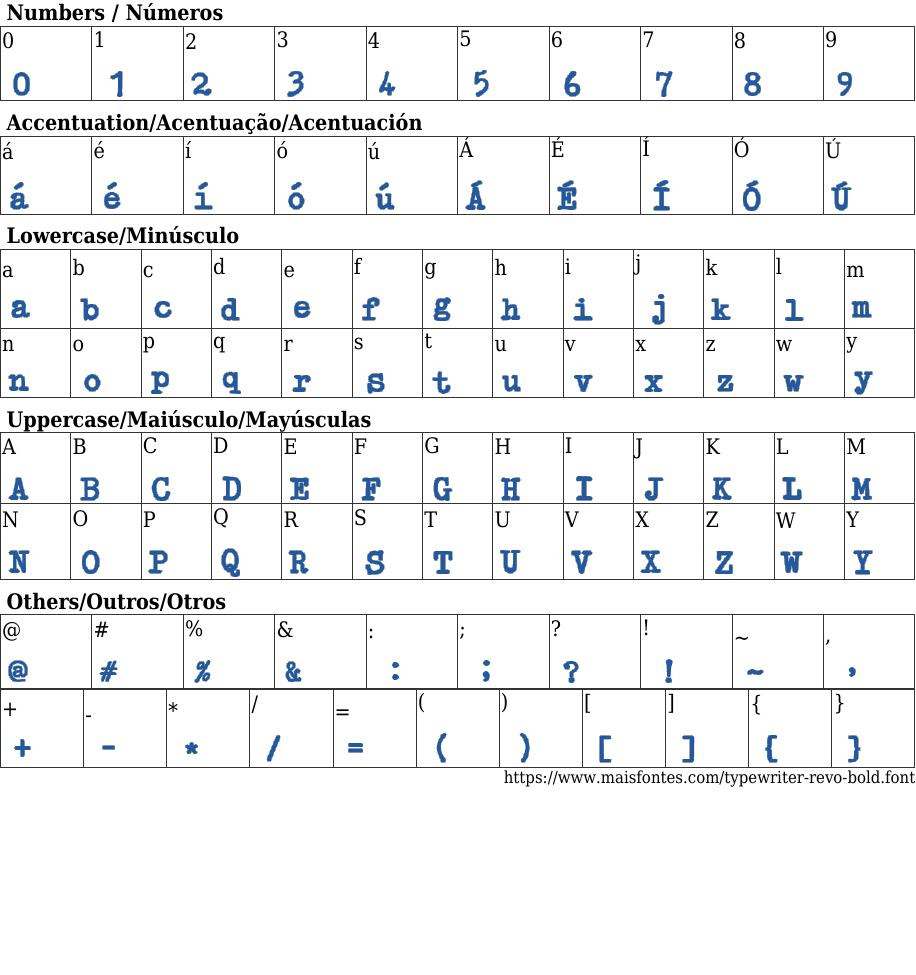
Typewriter Revo Font Free Download . These typewriter fonts look like they were written with an old mechanical typewriter. Get to know the typewriter revo font family and download it for free to use in your project. A great choice for highlighting your design elements. Using a catalog of over 990k+ fonts (commercial or free) and our font finder ai, we are able to display over 60 fonts for every image uploaded. Typewriter revo is based on. Typewriter revo is more suitable for continuous text and typewriter basix is suitable for large pictures, logos or headings. Typewriter revo bold is the perfect font for all your fun. In contrast to typewriter basix, typewriter revo includes 11. Typewriter revo regular font free download. Archive of freely downloadable fonts. Browse by alphabetical listing, by style, by author or by popularity.
Browse by alphabetical listing, by style, by author or by popularity. These typewriter fonts look like they were written with an old mechanical typewriter. Typewriter revo regular font free download. A great choice for highlighting your design elements. Typewriter revo bold is the perfect font for all your fun. In contrast to typewriter basix, typewriter revo includes 11. Get to know the typewriter revo font family and download it for free to use in your project. Typewriter revo is based on. Archive of freely downloadable fonts. Typewriter revo is more suitable for continuous text and typewriter basix is suitable for large pictures, logos or headings.
Typewriter Revo Font Free Download Typewriter revo is based on. Archive of freely downloadable fonts. Typewriter revo is more suitable for continuous text and typewriter basix is suitable for large pictures, logos or headings. Get to know the typewriter revo font family and download it for free to use in your project. In contrast to typewriter basix, typewriter revo includes 11. Browse by alphabetical listing, by style, by author or by popularity. Typewriter revo is based on. These typewriter fonts look like they were written with an old mechanical typewriter. Typewriter revo bold is the perfect font for all your fun. Using a catalog of over 990k+ fonts (commercial or free) and our font finder ai, we are able to display over 60 fonts for every image uploaded. A great choice for highlighting your design elements. Typewriter revo regular font free download.
REVO Regular font Typewriter Revo Font Free Download Get to know the typewriter revo font family and download it for free to use in your project. These typewriter fonts look like they were written with an old mechanical typewriter. Typewriter revo bold is the perfect font for all your fun. A great choice for highlighting your design elements. Typewriter revo is based on. Archive of freely downloadable fonts.. Typewriter Revo Font Free Download.
17 of the best typewriter fonts Creative Bloq Typewriter Revo Font Free Download In contrast to typewriter basix, typewriter revo includes 11. Typewriter revo is more suitable for continuous text and typewriter basix is suitable for large pictures, logos or headings. A great choice for highlighting your design elements. Archive of freely downloadable fonts. Using a catalog of over 990k+ fonts (commercial or free) and our font finder ai, we are able to. Typewriter Revo Font Free Download.
Revo Font Typewriter Revo Font Free Download These typewriter fonts look like they were written with an old mechanical typewriter. Browse by alphabetical listing, by style, by author or by popularity. In contrast to typewriter basix, typewriter revo includes 11. Typewriter revo is based on. Typewriter revo regular font free download. Using a catalog of over 990k+ fonts (commercial or free) and our font finder ai, we. Typewriter Revo Font Free Download.
20 best free typewriter fonts Artofit Typewriter Revo Font Free Download A great choice for highlighting your design elements. Using a catalog of over 990k+ fonts (commercial or free) and our font finder ai, we are able to display over 60 fonts for every image uploaded. These typewriter fonts look like they were written with an old mechanical typewriter. Typewriter revo is more suitable for continuous text and typewriter basix is. Typewriter Revo Font Free Download.
Free modern typewriter fonts — FontsArena Typewriter Revo Font Free Download Archive of freely downloadable fonts. A great choice for highlighting your design elements. Typewriter revo regular font free download. Browse by alphabetical listing, by style, by author or by popularity. Typewriter revo bold is the perfect font for all your fun. Typewriter revo is more suitable for continuous text and typewriter basix is suitable for large pictures, logos or headings.. Typewriter Revo Font Free Download.
Download free Typewriter font, free Typewriter.otf Regular font for Windows Typewriter Revo Font Free Download Using a catalog of over 990k+ fonts (commercial or free) and our font finder ai, we are able to display over 60 fonts for every image uploaded. Browse by alphabetical listing, by style, by author or by popularity. In contrast to typewriter basix, typewriter revo includes 11. Typewriter revo bold is the perfect font for all your fun. Typewriter revo. Typewriter Revo Font Free Download.
Type Writer Alphabet font template 680616 Vector Art at Vecteezy Typewriter Revo Font Free Download These typewriter fonts look like they were written with an old mechanical typewriter. A great choice for highlighting your design elements. Using a catalog of over 990k+ fonts (commercial or free) and our font finder ai, we are able to display over 60 fonts for every image uploaded. Typewriter revo regular font free download. Typewriter revo bold is the perfect. Typewriter Revo Font Free Download.
Revo font Typewriter Revo Font Free Download Typewriter revo bold is the perfect font for all your fun. Get to know the typewriter revo font family and download it for free to use in your project. Typewriter revo is based on. Browse by alphabetical listing, by style, by author or by popularity. Archive of freely downloadable fonts. Typewriter revo is more suitable for continuous text and typewriter. Typewriter Revo Font Free Download.